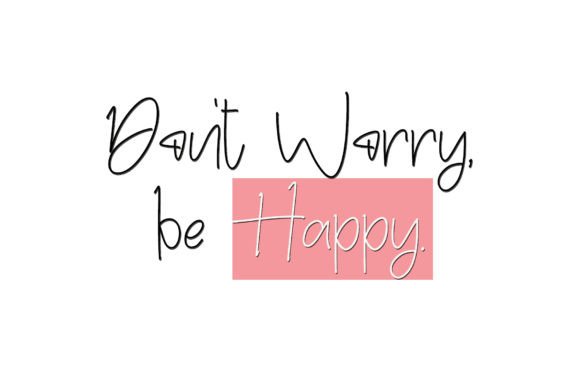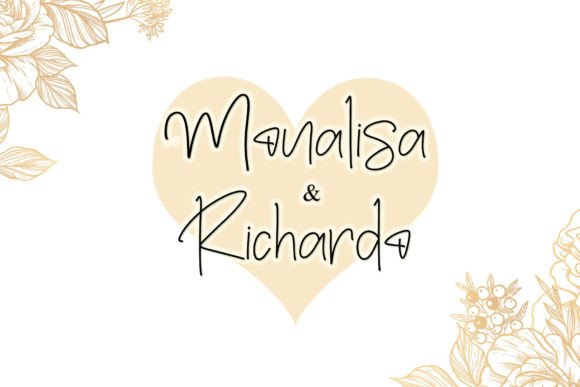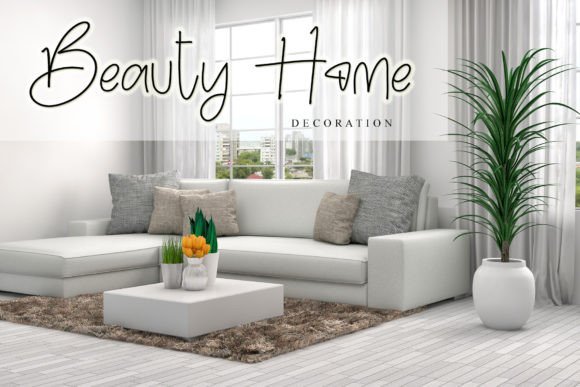
Introduction to Rollanisa Font
Rollanisa is a simple, thin-lettered handwritten font.
This adaptable font will look great on a variety of design ideas It will add a fun and friendly touch to each of your projects.
Key Features of Rollanisa Font
Why Choose Rollanisa Font?
Rollanisa Font offers exceptional quality and versatility, making it a valuable addition to your design toolkit. Whether you’re creating for personal projects or commercial use, Rollanisa Font delivers professional results.